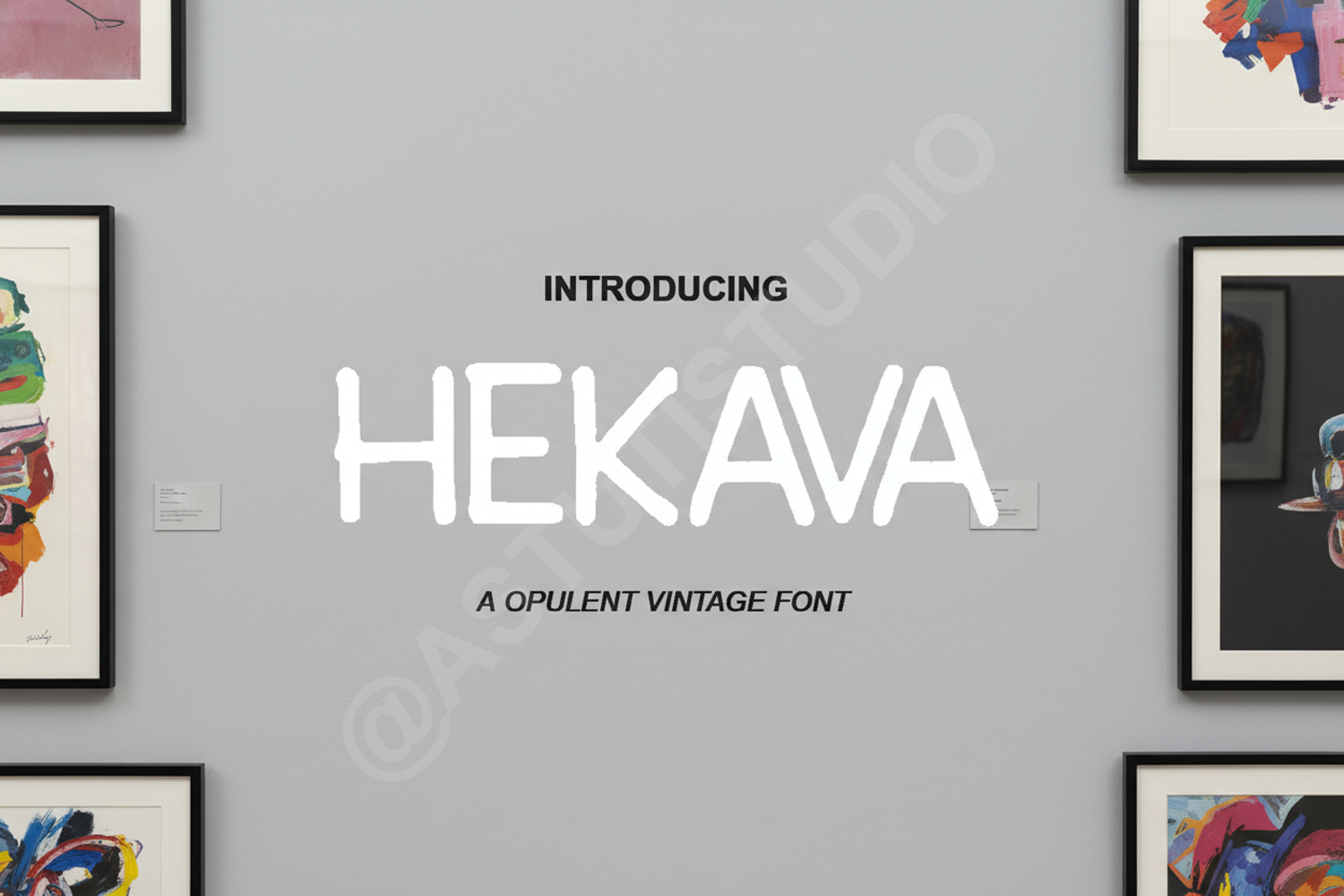
Hekava - Elegant Modern Serif Font
Hekava
Elevate your creative projects with Hekava, a premium luxury serif typeface designed for sophistication and timeless appeal. Hekava seamlessly blends clean, modern aesthetics with classic serif elegance, making it a versatile choice for designers who demand excellence. Its refined letterforms and balanced spacing ensure that your designs remain legible and high-end across all platforms.
- Luxury Branding: Create high-end logos and visual identities that leave a lasting impression.
- Wedding Stationery: Perfect for elegant invitations, save-the-date cards, and table settings.
- Editorial Layouts: Ideal for high-fashion magazine headers, titles, and sophisticated body copy.
- Premium Packaging: Enhance the shelf appeal of luxury cosmetics, jewelry, and lifestyle goods.
- Digital Marketing: Sophisticated typography for social media graphics, website headers, and online ads.